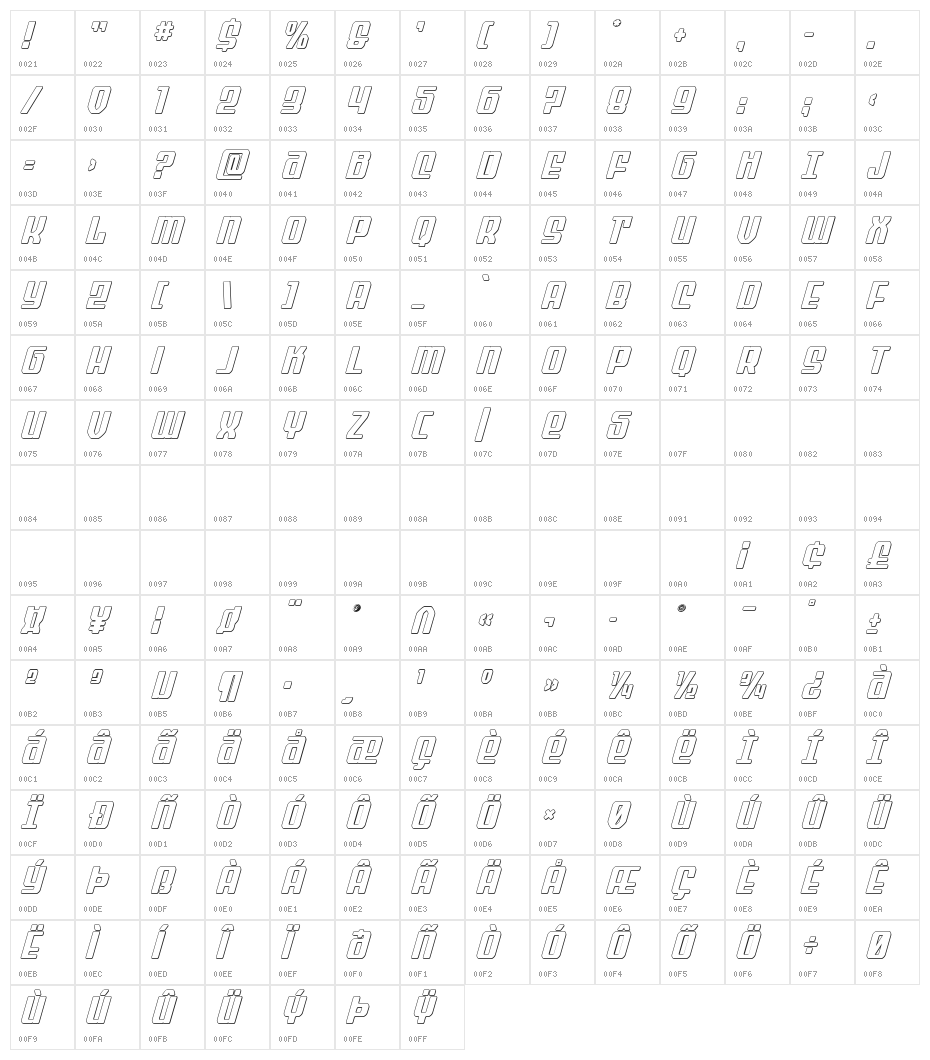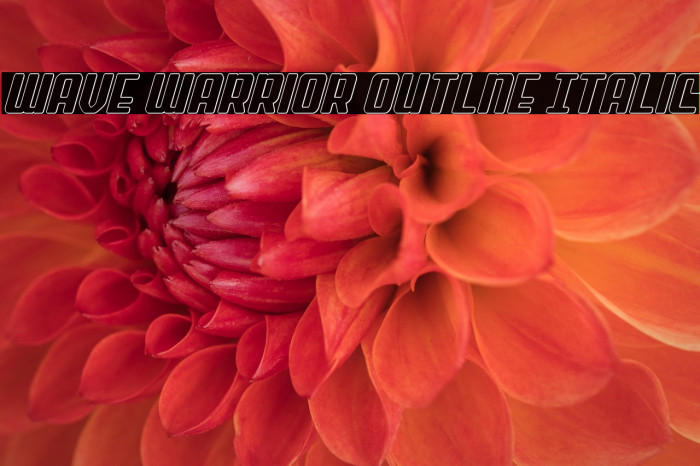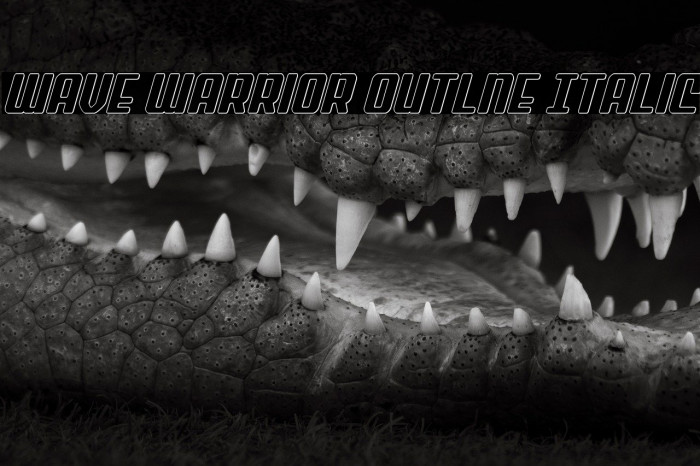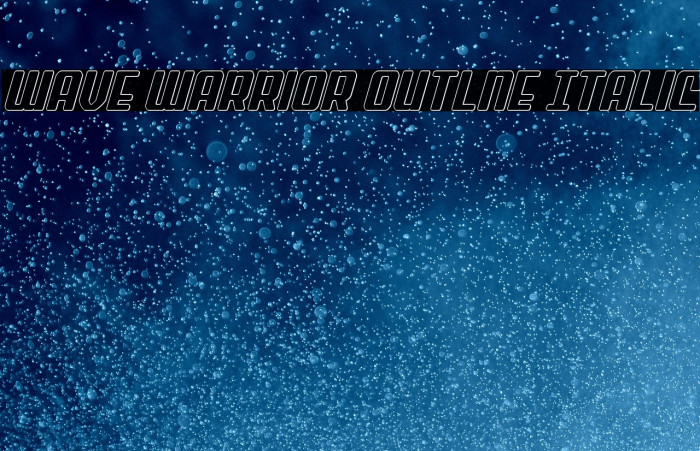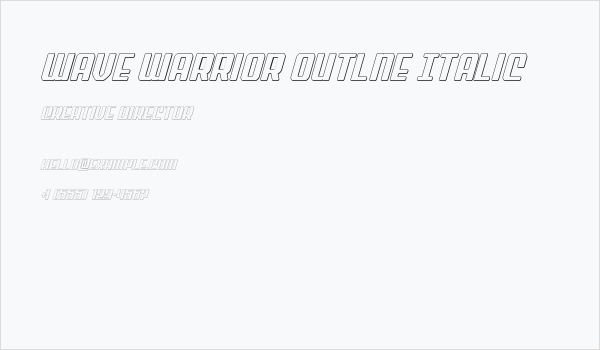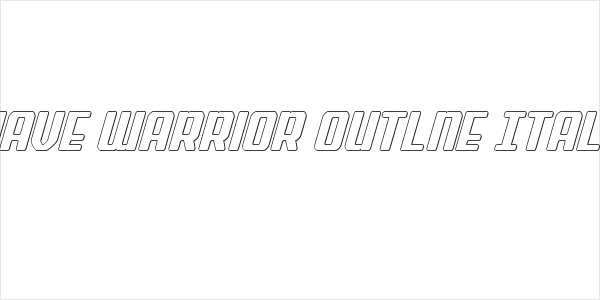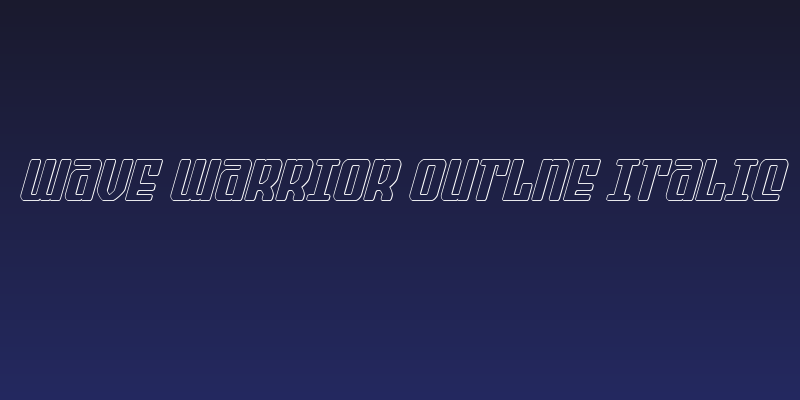
Wave Warrior Outlne Italic Font
Wave Warrior Outlne Italic Description
This font features a bold, outlined style with a distinct italic slant, giving it a dynamic and energetic appearance. The characters are uppercase and lowercase letters, numbers, and a variety of special characters. Each letter is crafted with a consistent outline thickness, creating a cohesive look across all characters. The design is modern and futuristic, with angular edges and a sense of movement, making it ideal for attention-grabbing headlines or logos. The spacing between characters is normal, allowing for readability while maintaining its striking visual impact.
| Proposed Projects | Ideal for sports branding, video game titles, futuristic posters, and dynamic logos. |